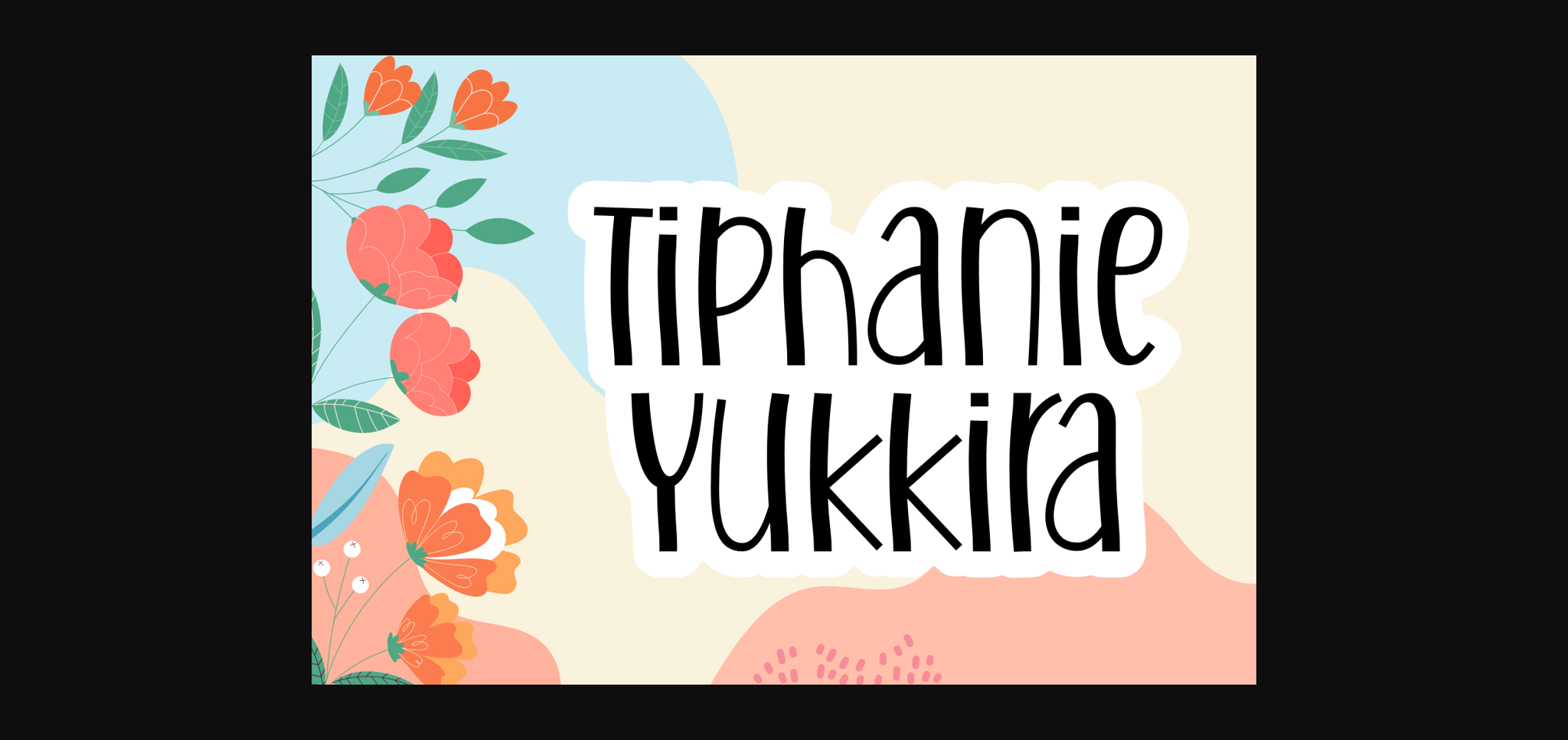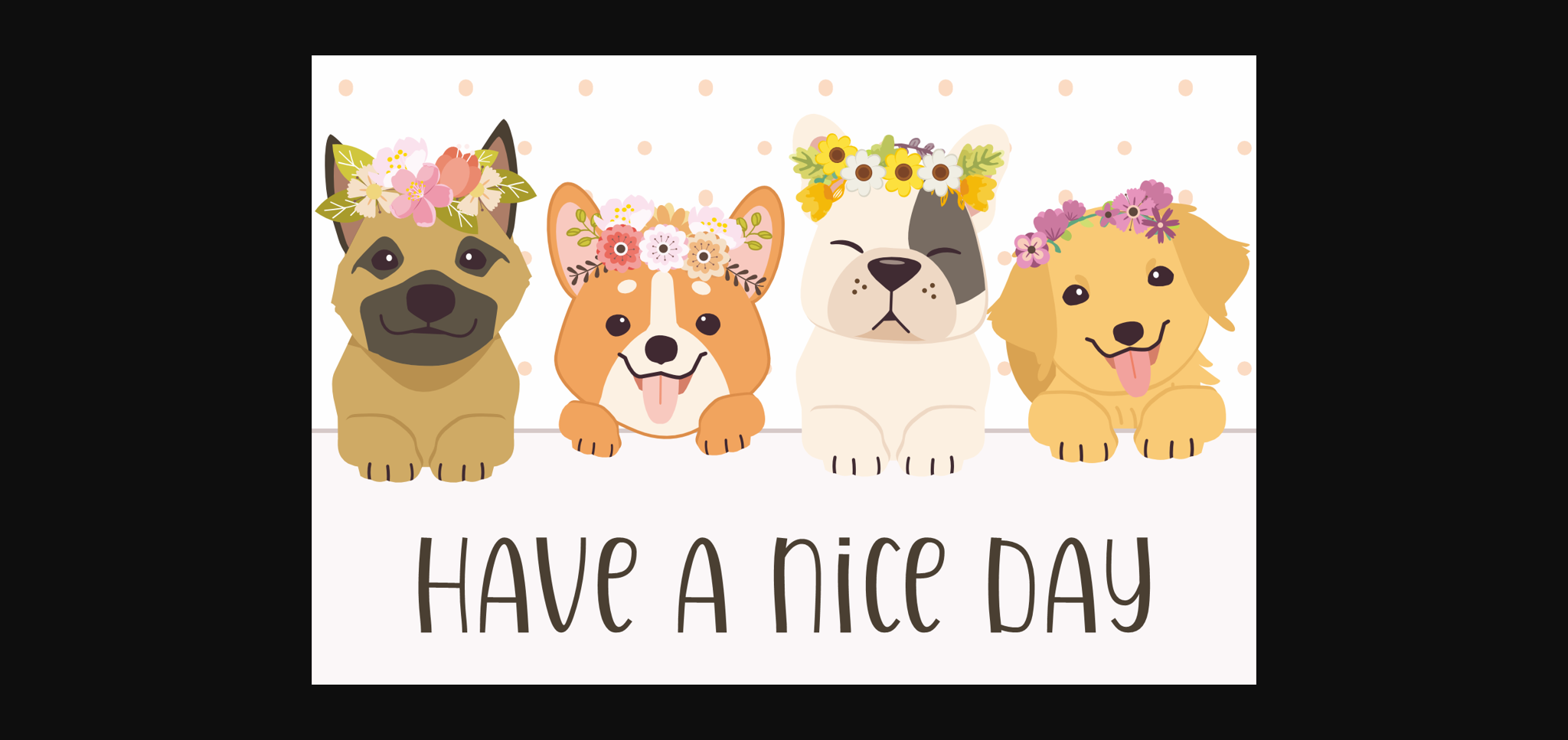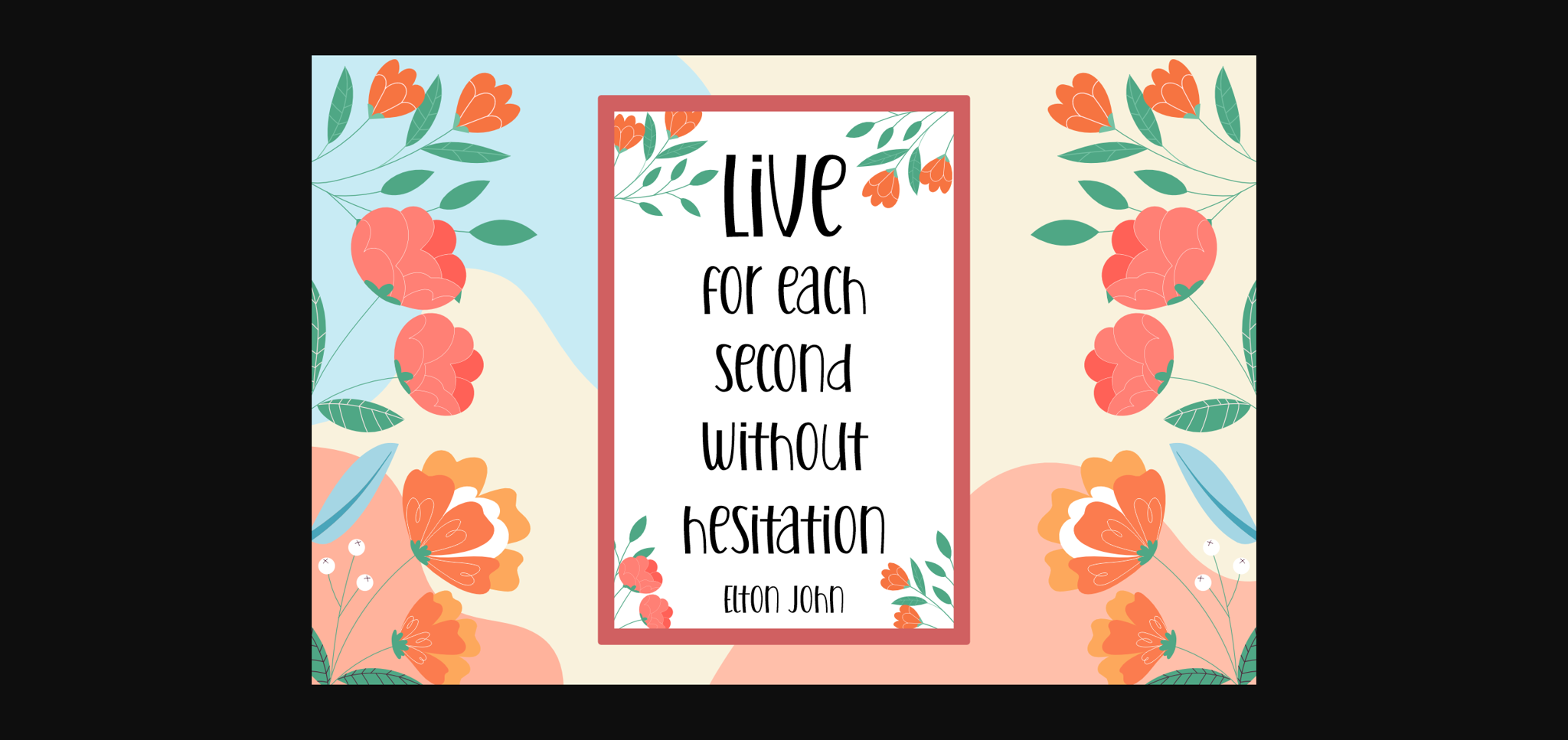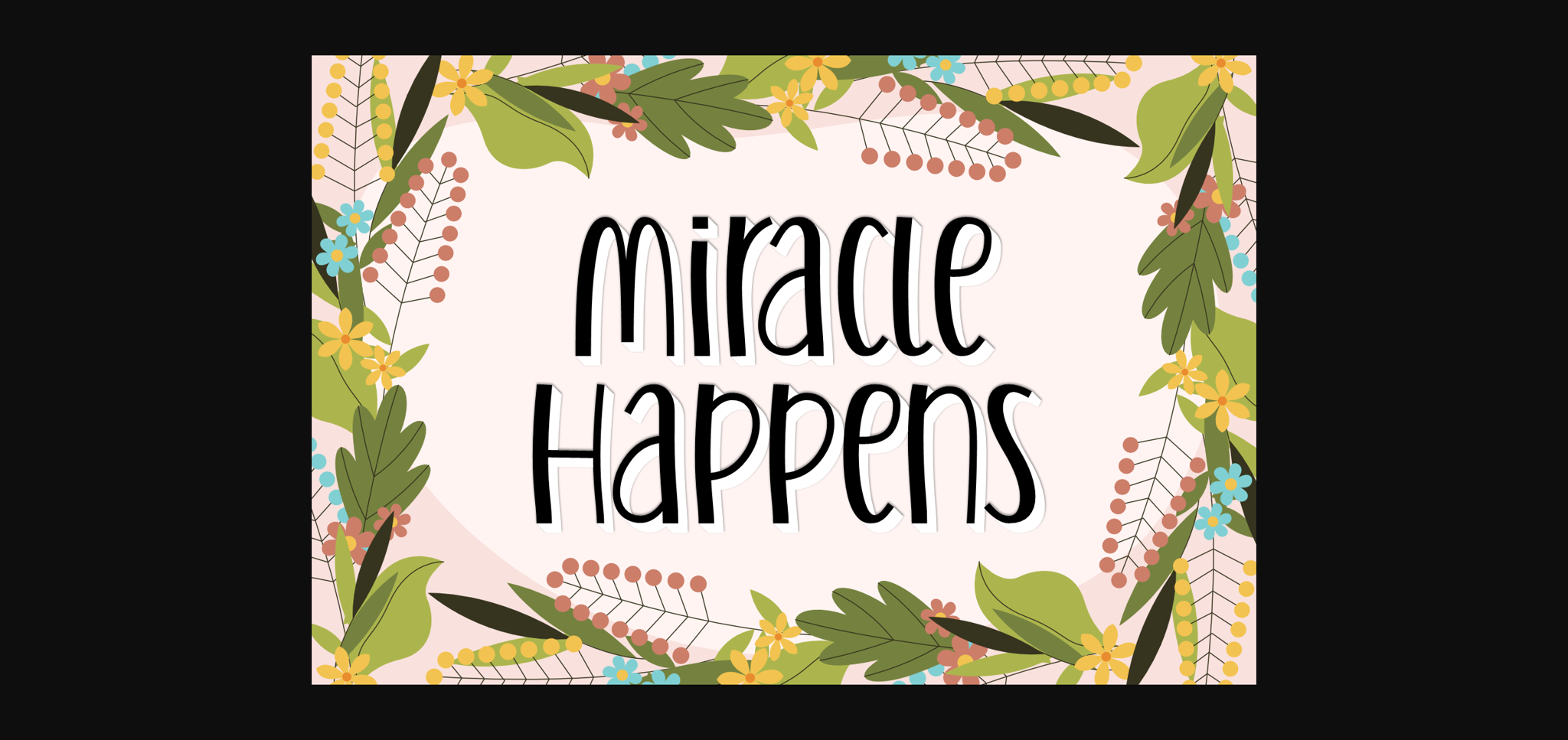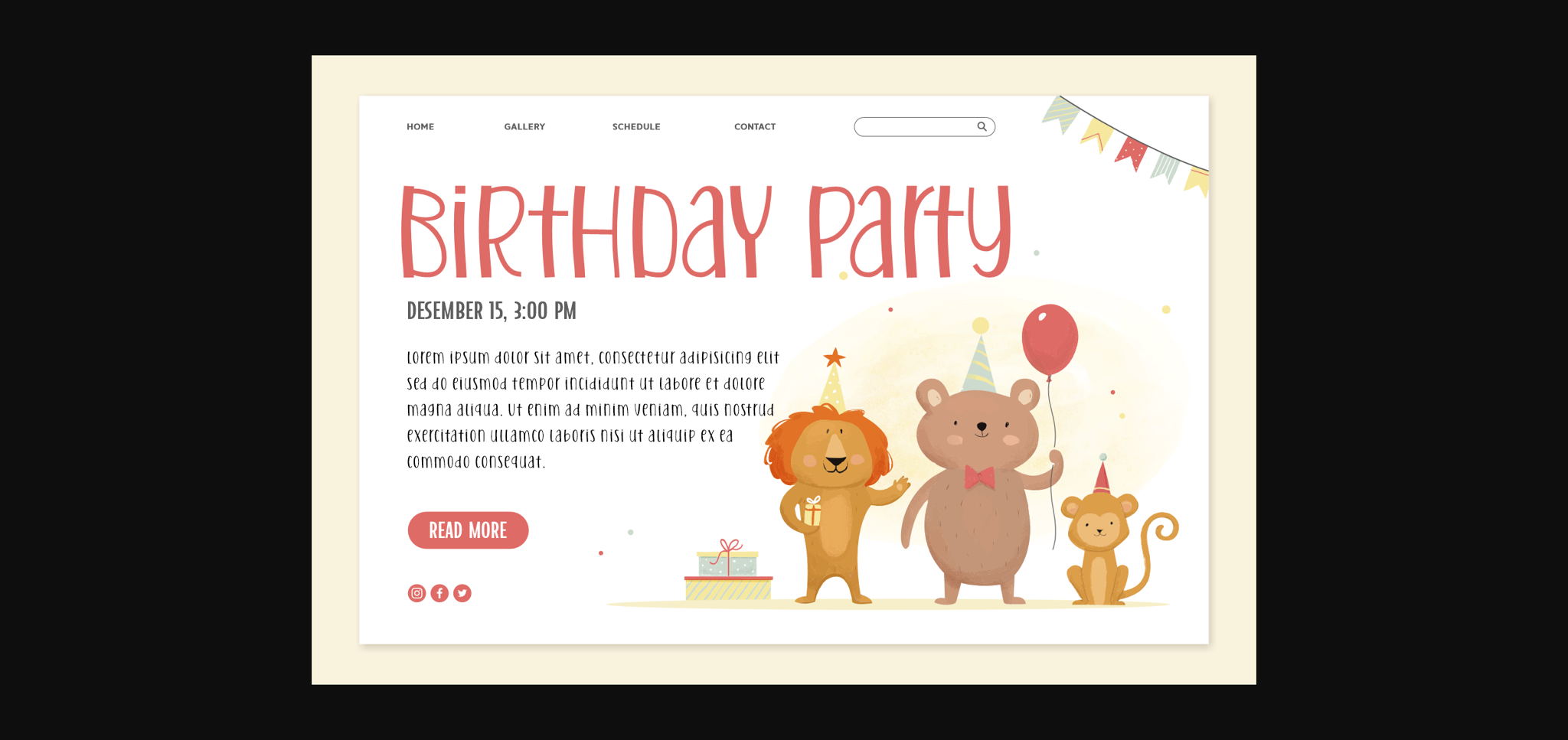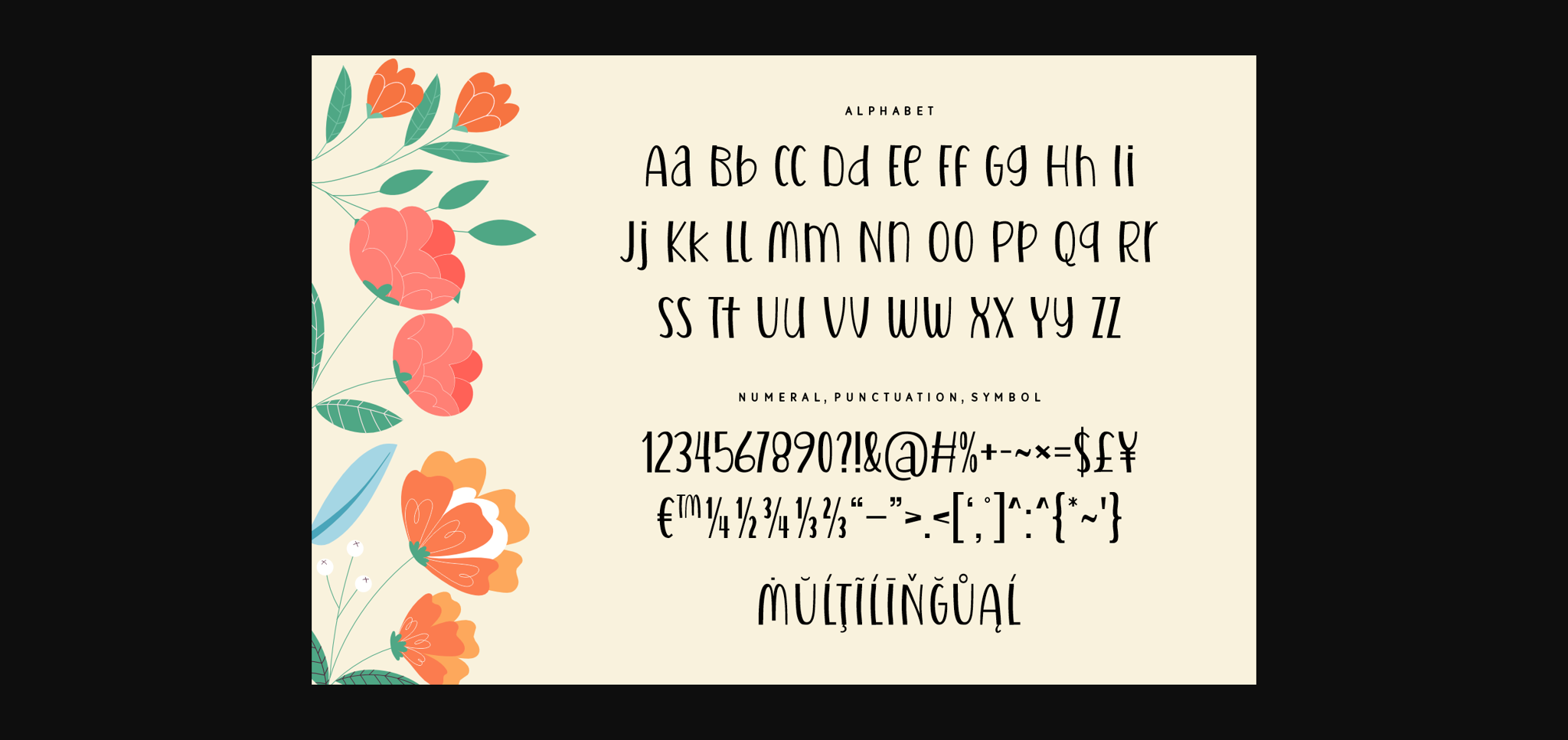
Tiphanie Yukkira Font
About Tiphanie Yukkira Font
Tiphanie Yukkira is a cute and quirky sans serif font. This friendly-looking typeface is the perfect choice for your next creative project! Use it to make charming posters, labels, invitations, cards, kid-friendly designs, and more.